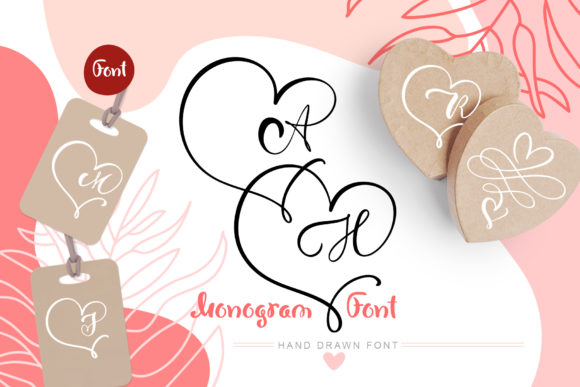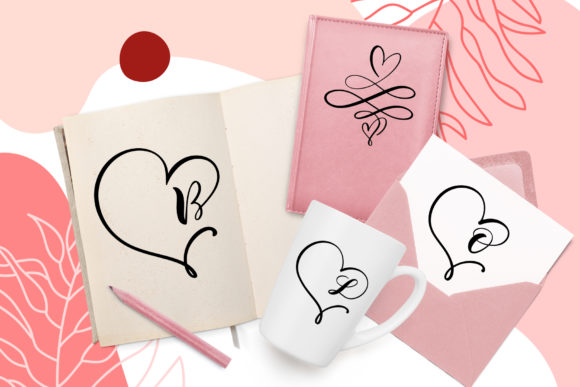
Monogram Font
About the Monogram Font
Explore the possibilities with Monogram Font, a font that offers both beauty and functionality. Monogram Font includes unique swirly letters in the form of hearts. They will add the feeling of love to any crafting idea, be it wedding or holiday crafts, Valentine’s greeting cards, logos, invitations, and much more! Its elegant calligraphic lines will add a fresh touch in an instant.
Monogram Font’s playful yet elegant style makes it ideal for projects requiring a touch of romantic charm. It excels in logo design, short headlines, invitations, and social media graphics where its distinctive letterforms create a memorable impact. However, its intricate details make it less suitable for body text or UI elements where readability is paramount. Avoid using it for large blocks of text.
Pairing Monogram Font with a clean sans-serif like Lato or Open Sans provides a strong contrast, balancing its ornate script with modern simplicity. For a more traditional feel, consider pairing it with a classic serif font such as Garamond or Playfair Display. These pairings create visual harmony and enhance the overall design.
The font projects a personality that is both celebratory and sophisticated, making it a versatile choice for brands focused on romance, artistry, or special events.
Monogram Font Usage Examples
Monogram Font Example